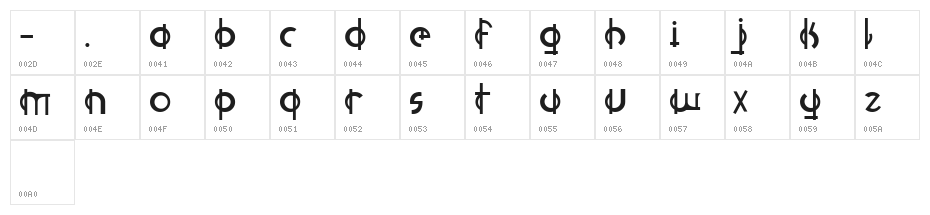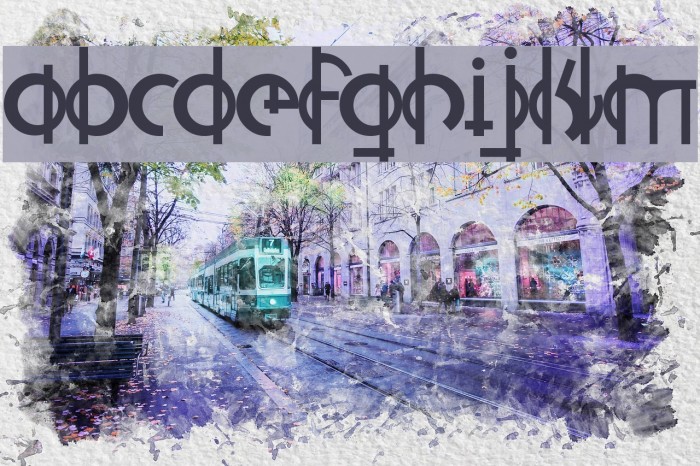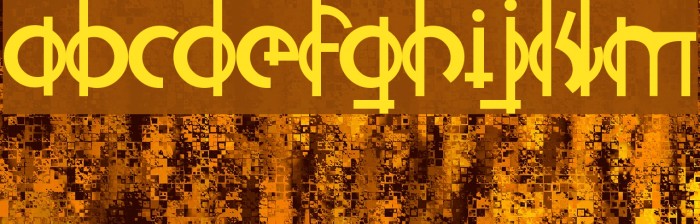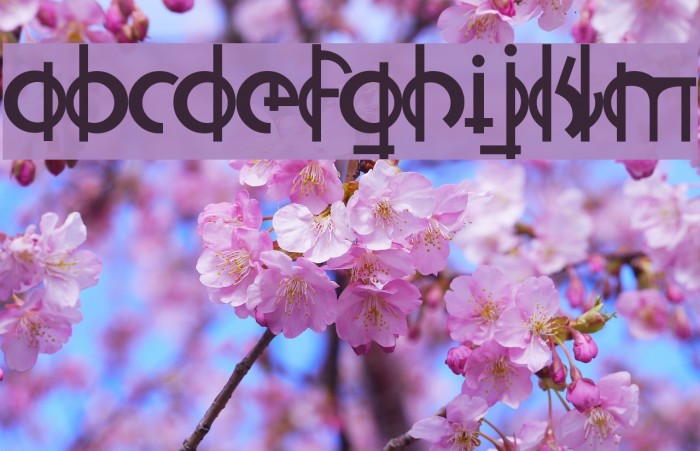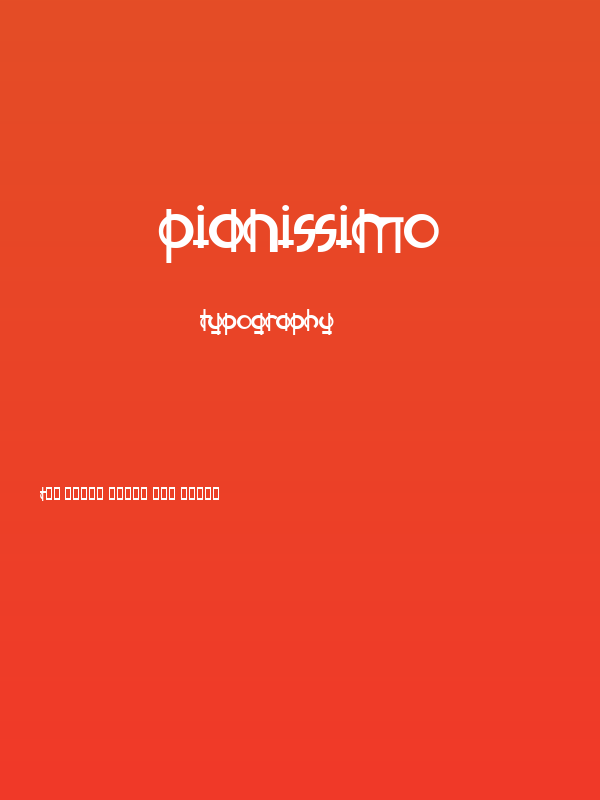
Pianissimo Font
Pianissimo Description
This font features a unique and artistic design with overlapping characters, creating a visually striking and abstract appearance. The letters are bold and have a modern, geometric style, with some characters appearing mirrored or flipped. The overall look is experimental and avant-garde, making it suitable for creative and unconventional projects. The font's distinctiveness lies in its ability to capture attention through its unusual presentation, making it a great choice for artistic and design-focused applications.
| Use Case | Logos, Posters, Artistic Displays |
| Proposed Projects | Ideal for experimental design projects, modern art exhibitions, and creative branding materials. |